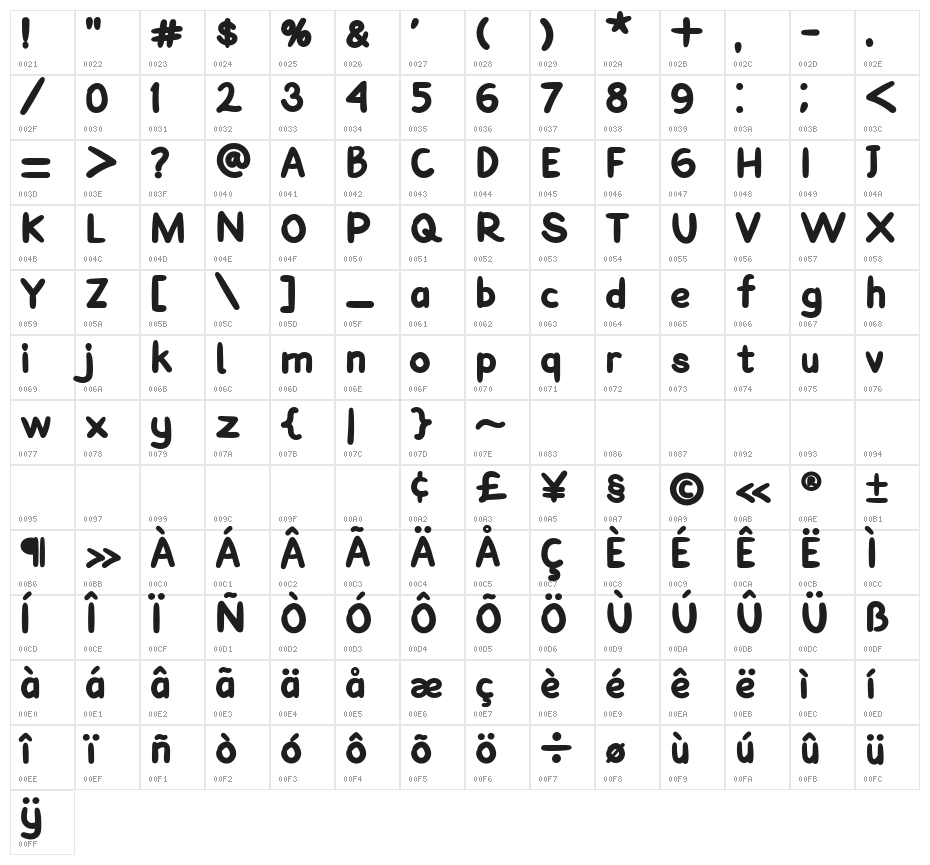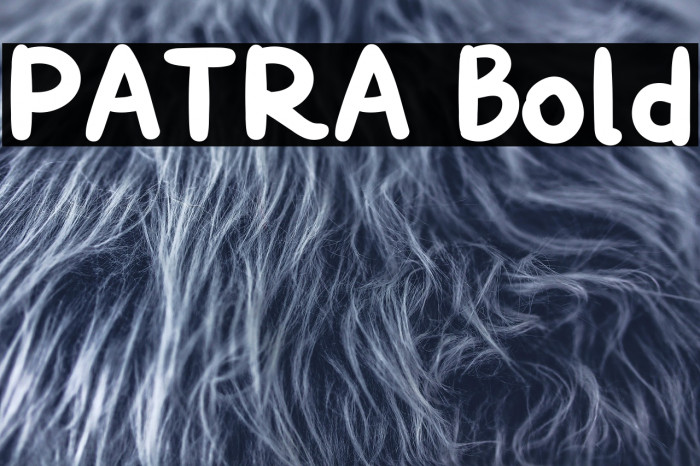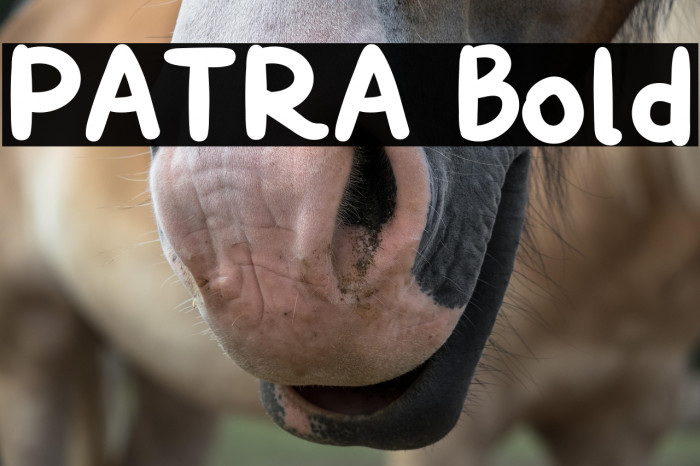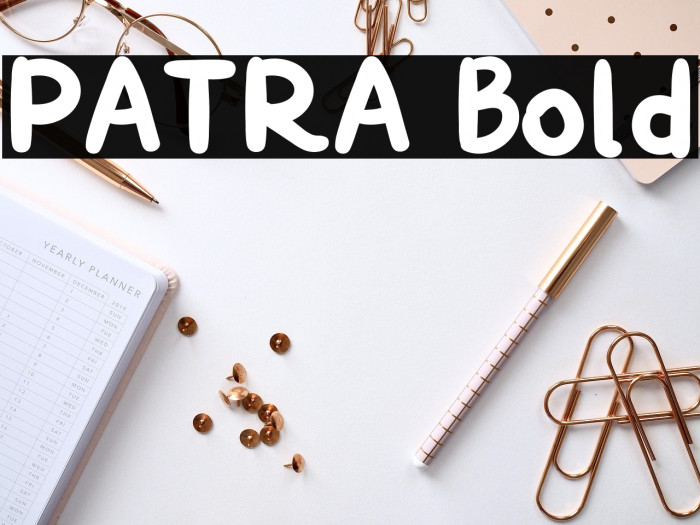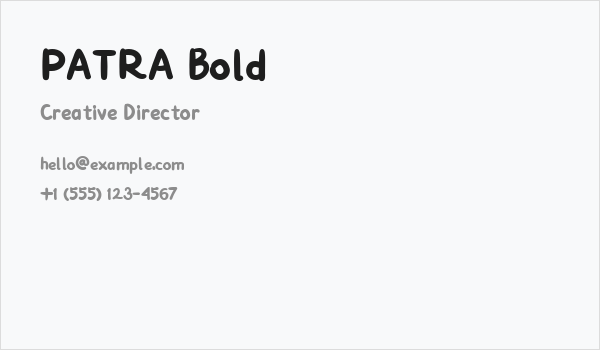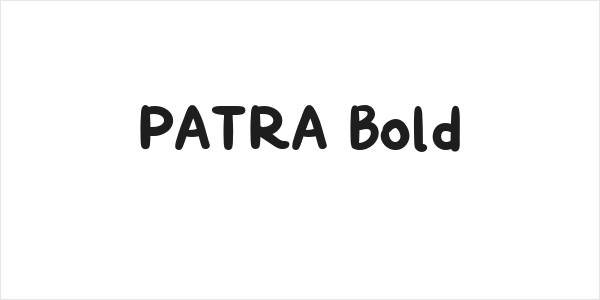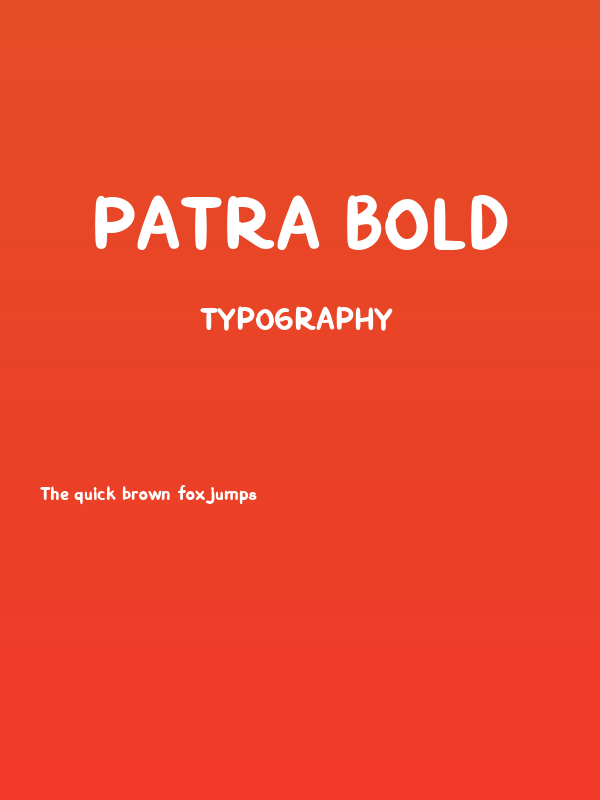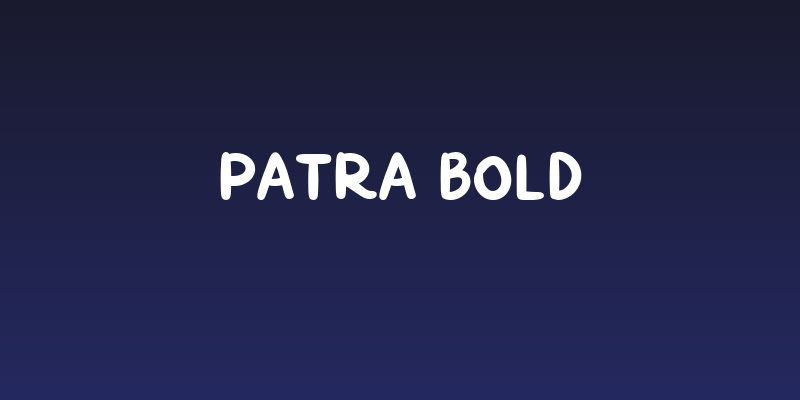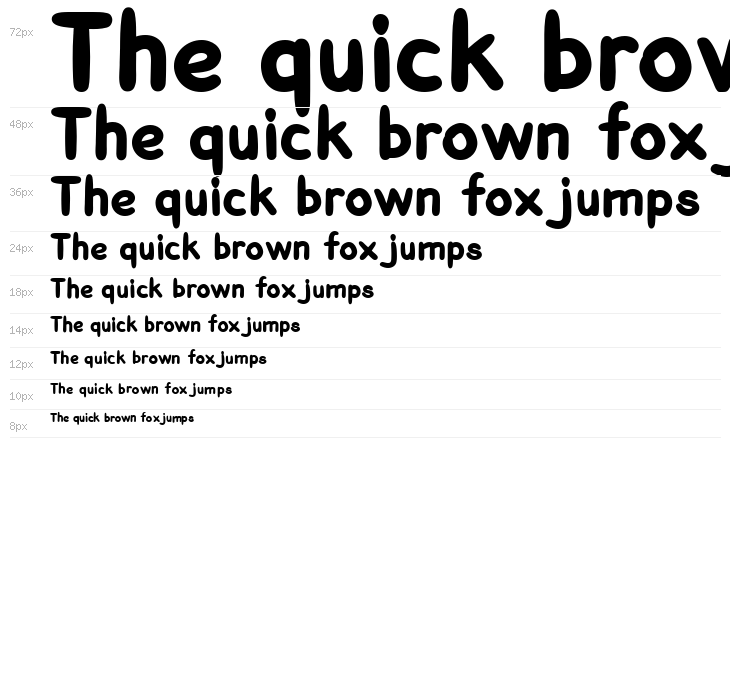
PATRA Bold Font
PATRA Bold Description
This font features a bold and playful style with rounded edges and a friendly appearance. The characters are thick and uniform, providing a strong visual impact. The uppercase and lowercase letters maintain a consistent width, contributing to a cohesive look. Numbers and special characters follow the same design principles, ensuring readability and a harmonious aesthetic. The overall design is approachable and modern, making it suitable for various creative applications.
| Proposed Projects | Ideal for children's books, playful branding, posters, and social media graphics. |